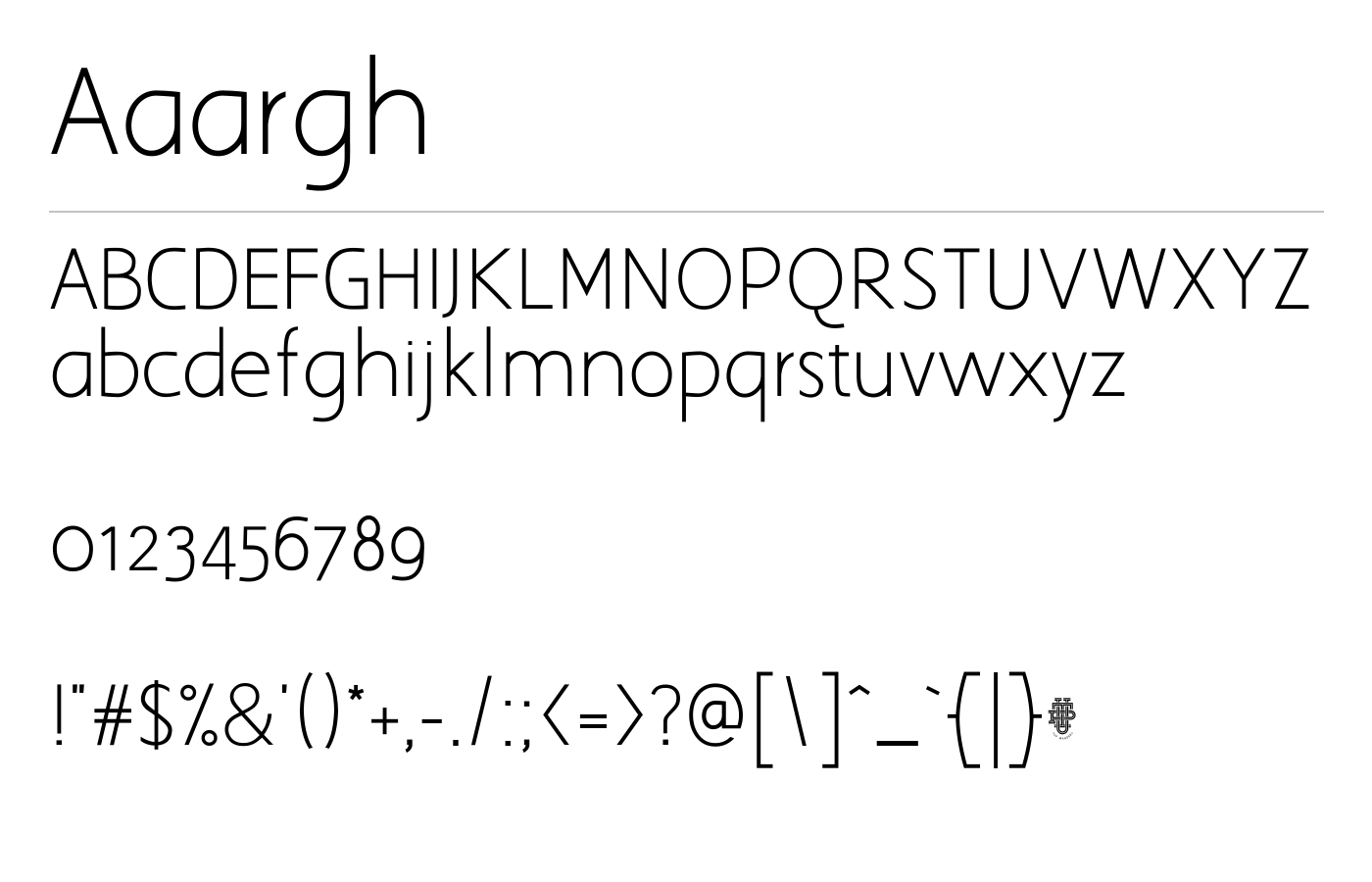
Aaargh is a sleek, modern sans serif font characterized by its thin strokes, tall x-height, and clean geometric shapes. Its light weight and airy spacing give it an elegant, minimalist feel, making it ideal for contemporary design projects that require clarity and sophistication. This font works well in branding, editorial layouts, and digital interfaces where a stylish yet understated look is desired.
Aaargh Font
About Aaargh Font
| Designer | Tup Wanders |